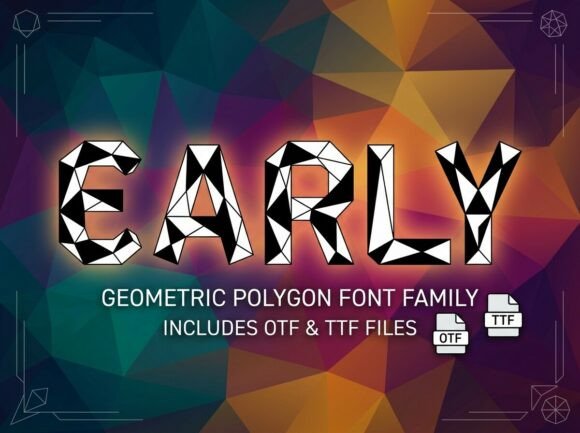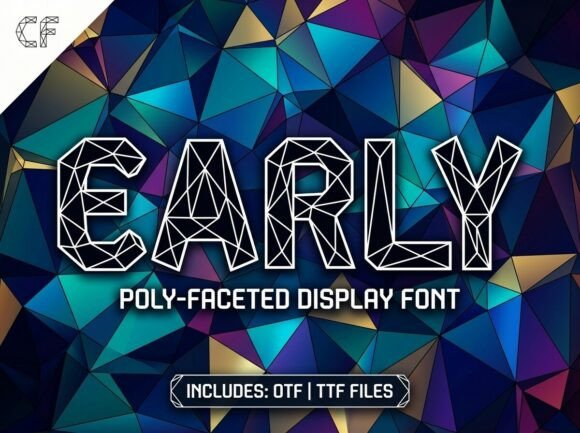
Introducing Early: The Futuristic Display Typeface for Modern Design
Step into the future of digital design with Early, a high-tech display typeface that embodies a “shattered-and-sharp” soul. This innovative font is designed to make a statement, featuring bold, geometric letterforms that are masterfully constructed from a rhythmic tapestry of hand-drawn polygonal facets. The result is a multi-dimensional “low-poly” aesthetic that is both visually striking and uniquely captivating.
The Inspiration Behind Early
Early’s design is inspired by the intersection of technology and art. The font’s creator sought to craft a typeface that would reflect the cutting-edge spirit of modern tech startups, while also paying homage to the world of architectural design and digital gaming. The result is a font that is both futuristic and versatile, making it perfect for a wide range of applications.
Key Features of Early
- Bold, Geometric Letterforms: Early’s letterforms are designed to be bold and attention-grabbing, making it perfect for headlines, titles, and other display text.
- Hand-Drawn Polygonal Facets: The font’s unique polygonal facets give it a dynamic, hand-crafted feel that sets it apart from more traditional typefaces.
- Multi-Dimensional “Low-Poly” Aesthetic: Early’s low-poly aesthetic gives it a futuristic, high-tech feel that is perfect for modern design applications.
- Heavy Structural Weight: The font’s heavy structural weight makes it perfect for use in titles, headers, and other display text where a strong visual impact is desired.
- Crystalline Personality: Early’s crystalline personality gives it a unique, eye-catching quality that is sure to make it stand out in any design.
Use Cases for Early
Early is a versatile font that can be used in a wide range of design applications, including:
- Independent Tech Startup Branding: Early’s futuristic, high-tech aesthetic makes it perfect for use in tech startup branding, where a bold and attention-grabbing visual identity is essential.
- Gaming Interface Titles: The font’s bold, geometric letterforms and low-poly aesthetic make it a natural fit for use in gaming interface titles, where a strong visual impact is desired.
- Architectural Design Portfolios: Early’s crystalline personality and heavy structural weight make it perfect for use in architectural design portfolios, where a sophisticated and visually striking visual identity is essential.
- High-Impact Social Media Headers: The font’s bold, attention-grabbing aesthetic makes it perfect for use in social media headers, where a strong visual impact is desired.
Why Choose Early?
Early is a premium display typeface that offers a unique combination of style, versatility, and visual impact. Here are just a few reasons why designers and crafters should choose Early for their next project:
- Unique Visual Identity: Early’s futuristic, high-tech aesthetic makes it perfect for designers looking to create a bold and attention-grabbing visual identity.
- Versatility: The font’s versatility makes it perfect for use in a wide range of design applications, from tech startup branding to architectural design portfolios.
- High-Quality Design: Early is a premium font that is designed to deliver high-quality results, with crisp, clean lines and a sophisticated aesthetic.
Early is a game-changing display typeface that is sure to revolutionize the world of digital design. With its bold, geometric letterforms, hand-drawn polygonal facets, and multi-dimensional “low-poly” aesthetic, Early is the perfect choice for designers looking to create a futuristic, high-tech visual identity. Whether you’re working on a tech startup branding project, a gaming interface title, or a high-impact social media header, Early is the perfect font for the job.